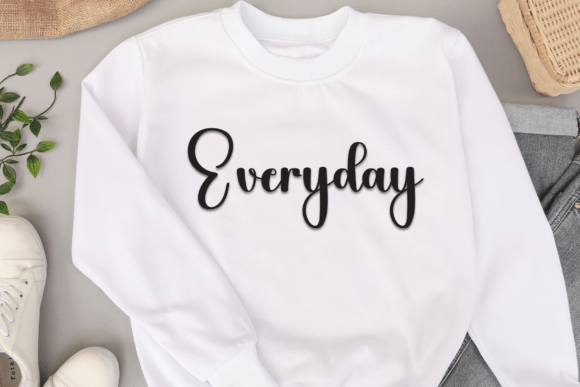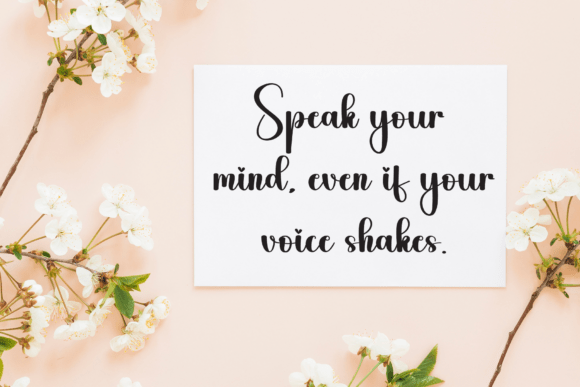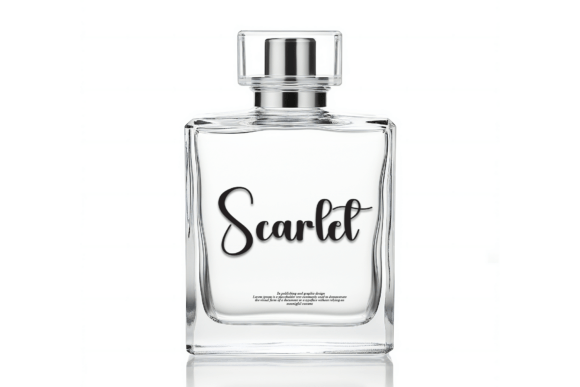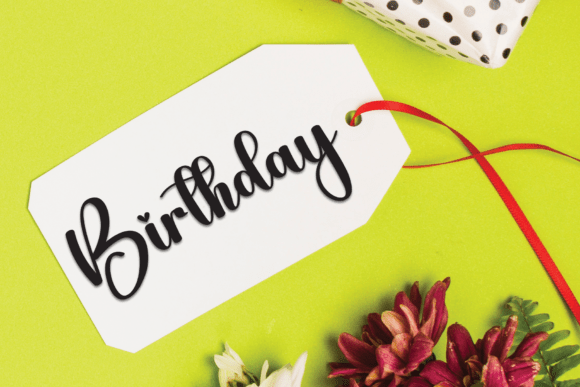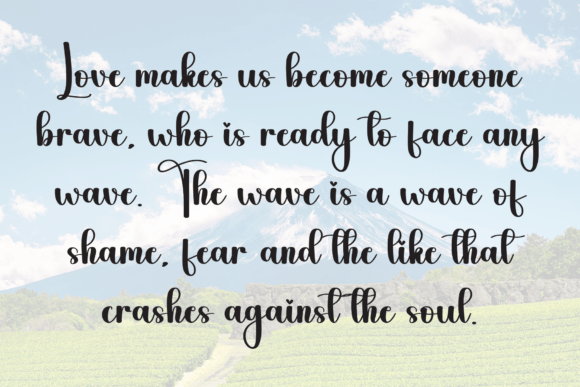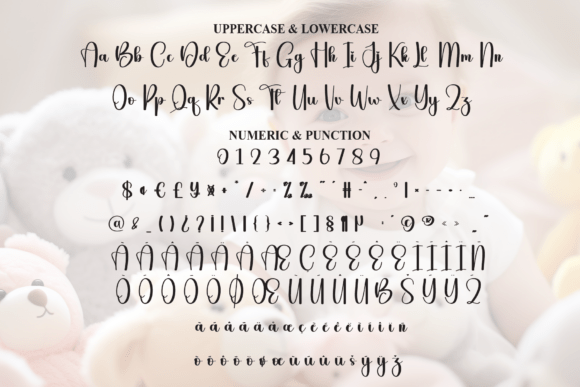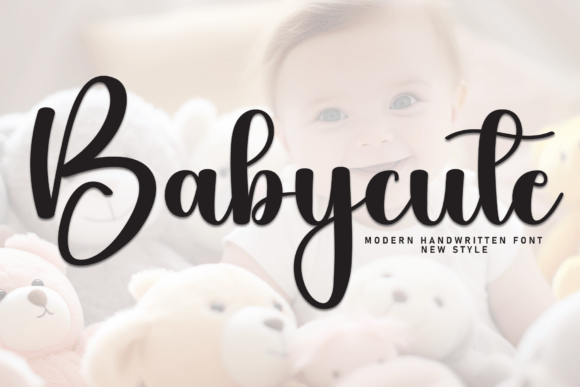
Unlock the Magic of Handwritten Charm with Babycute Font
Have you ever stumbled upon a beautiful, handwritten note from a loved one that instantly brightens up your day? The delicate curves, the playful flourishes, and the personal touch evoke a sense of warmth and intimacy that digital fonts often lack. This is precisely the creative moment that inspired the creation of Babycute Font – a charming, handwritten display font designed to capture the essence of handwritten charm in your designs.
Babycute Font is perfect for adding a touch of whimsy to your wedding invitations, greeting cards, or any creative project that demands a personal and emotional connection. With its delightful blend of elegance and playfulness, this font brings a unique value to designers looking to elevate their designs with a human touch. By incorporating Babycute Font into your design craft, you can create masterpieces that radiate warmth, joy, and affection.
Babycute Font Key Features
- Font Family: Babycute Font is a unique, hand-drawn font designed specifically for baby-related products and applications.
- Character Set: The font includes a wide range of characters, including uppercase and lowercase letters, numbers, and various symbols and glyphs.
- Unique Characteristics: The font features a playful, cursive design with rounded edges and subtle flourishes, making it perfect for creating a warm and inviting atmosphere.
Babycute Font Review
Overall, I think the Babycute Font is a great addition to any designer’s toolkit. ✨ The font’s playful and whimsical feel makes it perfect for projects that require a touch of innocence and charm. I’ve used it for several children’s book covers and the results have been fantastic. ✨ The font’s versatility also shines through in its ability to be used for a wide range of themes, from nursery decor to kids’ clothing brands.
- ✨ Playful and whimsical feel
- ✨ Versatile and suitable for a wide range of themes
- ✨ Great for projects that require a touch of innocence and charm
However, I do have a few limitations to note. ⚠️ The font may not be the best choice for projects that require a more professional or sophisticated tone. Additionally, the font’s design can sometimes make it difficult to read in smaller font sizes.
- ⚠️ May not be suitable for professional or sophisticated projects
- ⚠️ Can be difficult to read in smaller font sizes
Overall, I’m really impressed with the Babycute Font and I think it’s a great addition to any designer’s toolkit. While it may have some limitations, its playful and versatile nature makes it a great choice for a wide range of projects.
The Babycute Font is perfect for:
- Baby-themed designs, such as nursery decorations and baby announcements.
- Family and parenting blogs and websites.
- Other designs where a playful and cute font is desired.
Tips for Getting the Most Out of Babycute Font
For optimal results, use the Babycute Font in conjunction with other playful and whimsical design elements, such as illustrations and graphics. Experiment with different font